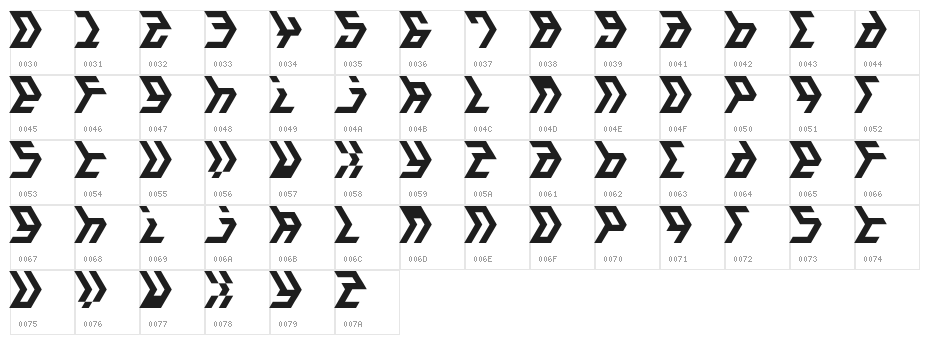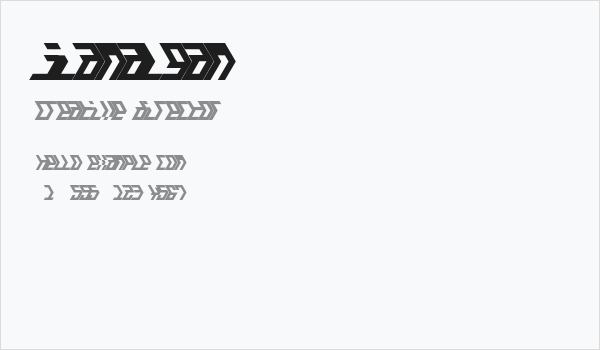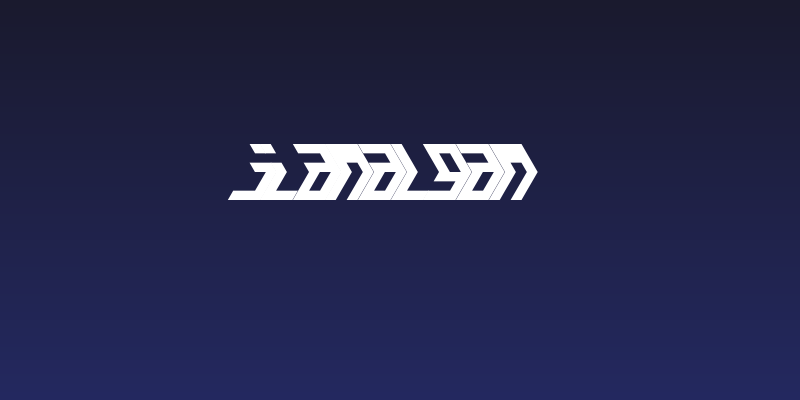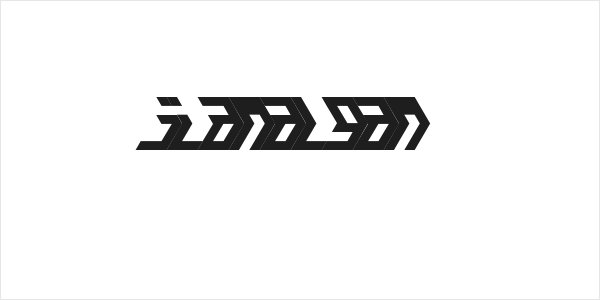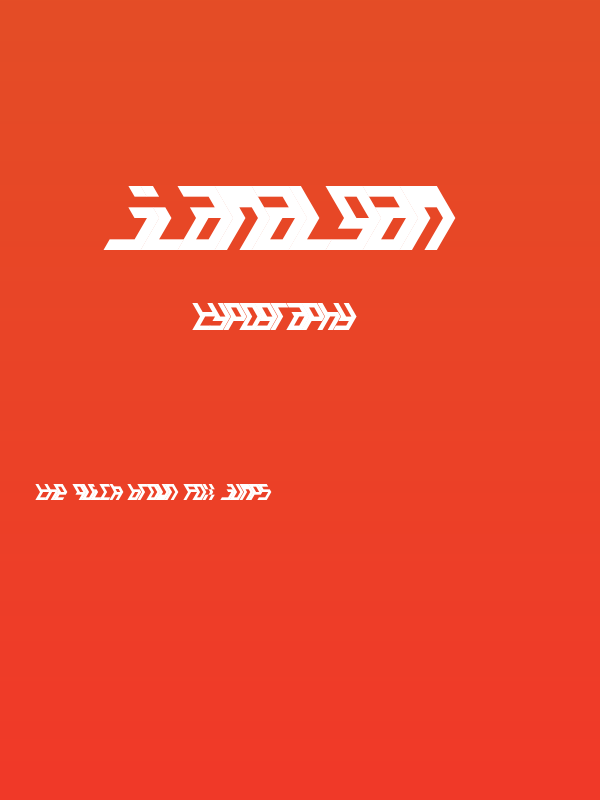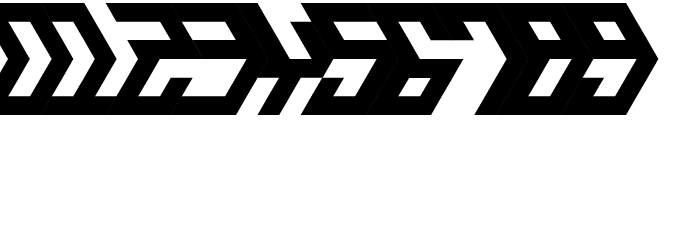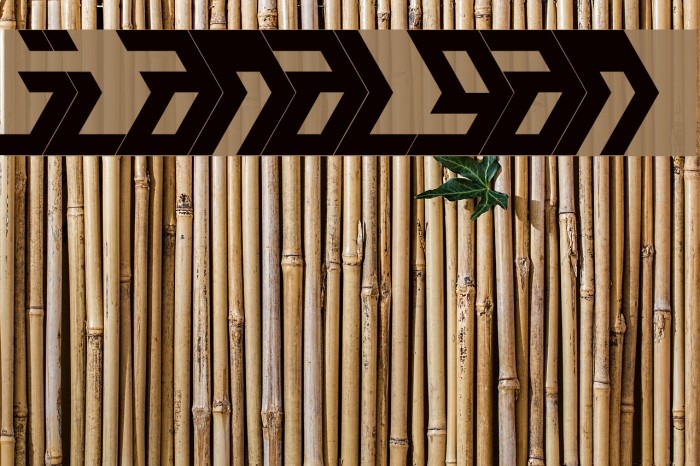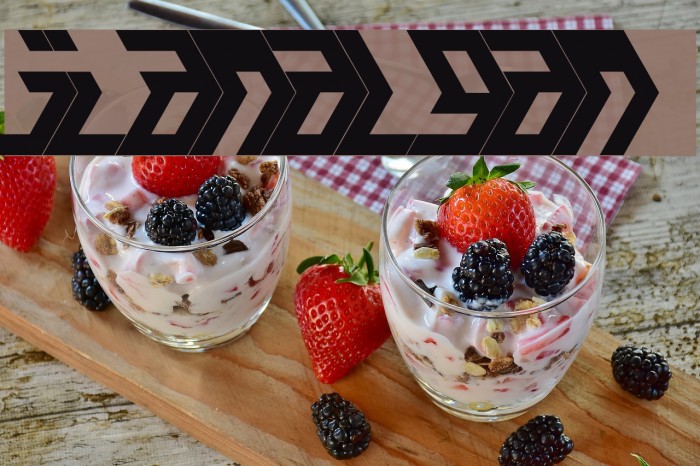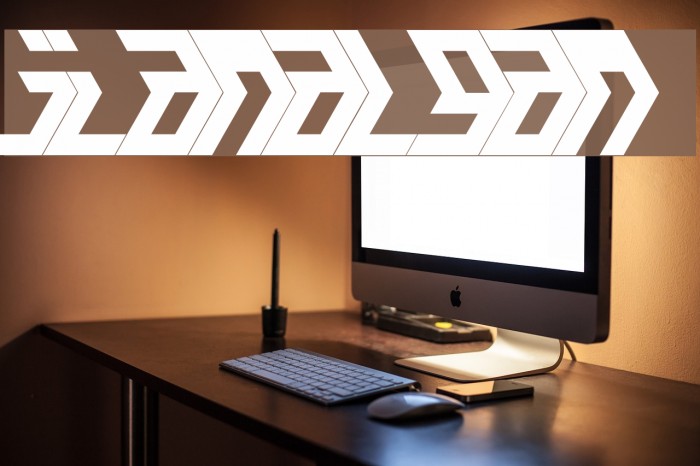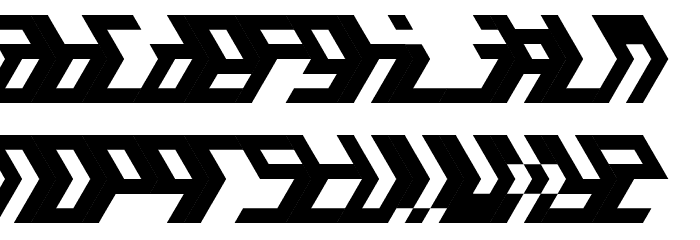
JIAmalgam Font
JIAmalgam Description
This font features a bold, geometric design with sharp angles and a futuristic aesthetic. The characters are constructed with thick, uniform strokes that create a sense of strength and modernity. The angular shapes and interconnected lines give it a dynamic and energetic feel, making it stand out in any design. The font's unique style is reminiscent of digital or sci-fi themes, with a distinct emphasis on symmetry and structure. It is highly stylized, with each letterform crafted to maintain a cohesive visual rhythm across the alphabet.
| Proposed Projects | Ideal for projects related to technology, gaming, sci-fi themes, or branding that requires a modern and edgy look. |